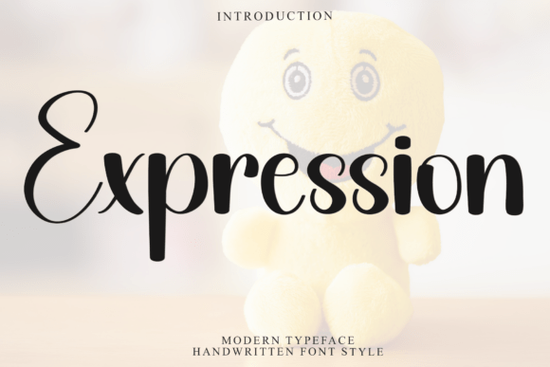
If you are looking for a typeface that feels both soft and distinctive, Expression Font delivers exactly that. Designed with gentle curves and carefully shaped strokes, it brings a natural, handcrafted vibe to any project without looking overly decorative. Whether you run a small print-on-demand shop, create digital stickers, or design wedding invitations, this lettering style gives your work a quiet confidence that customers notice right away.
What makes this typeface stand out?
The real strength of this design lies in its balanced weight and organic flow. Each character carries a subtle uniqueness that keeps text from feeling rigid or machine-made. The strokes vary just enough to create visual interest, while the overall spacing remains clean and highly readable. You will find a complete set of uppercase and lowercase letters, numbers, and standard punctuation, which means you can type full sentences, product titles, or short quotes without missing glyphs. Because the style leans toward a relaxed, artistic feel, it works especially well when you want your message to sound personal rather than corporate.
Where does it work best for crafters and sellers?
This font shines in projects that rely on warmth and approachability. Think custom t-shirt graphics, mug wraps, nursery wall art, and handmade packaging labels. Print-on-demand sellers often use softer display typefaces to make product listings feel more boutique, and this one fits that niche perfectly. It also handles short headlines, logo wordmarks, and social media templates without overwhelming your layout. If you design digital planners or printable cards, the gentle curves keep pages inviting while leaving room for body text. For makers who sell at local markets or online, a consistent lettering style helps your brand stand out in a crowded feed.
What should I pair it with for balanced layouts?
Because the letterforms already carry a lot of personality, pairing them with simpler typefaces keeps your design from feeling crowded. A clean sans serif works well for longer descriptions, while a light serif can add structure to pricing blocks or disclaimers. If you enjoy experimenting with handwritten styles, you might browse other script options like a relaxed midruns typeface for accent words, or try a more structured celtic stitches lettering set when your project needs a thematic edge. For playful branding, a quirky writing style can add contrast without competing for attention. When your layout calls for elegant flourishes, a melintina calligraphy option pairs nicely for formal invitations, and a smooth radiance script works well for beauty labels. You can also explore how Expression Font fits into broader creative libraries before committing to a full brand refresh.
Keep your layouts simple, let the lettering do the talking, and you will have a finished design that feels both polished and personal.